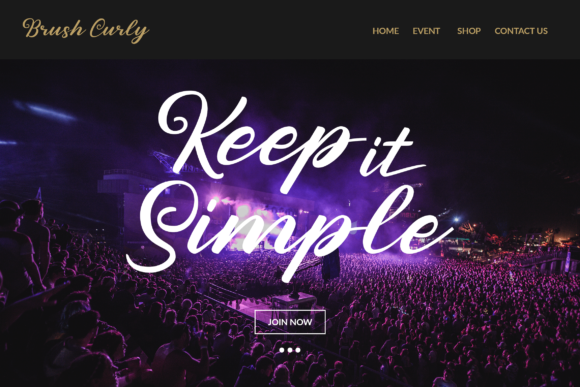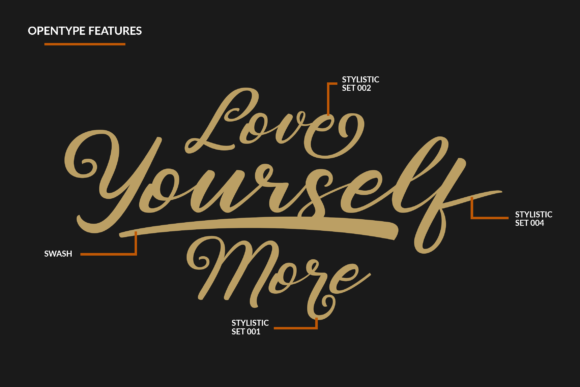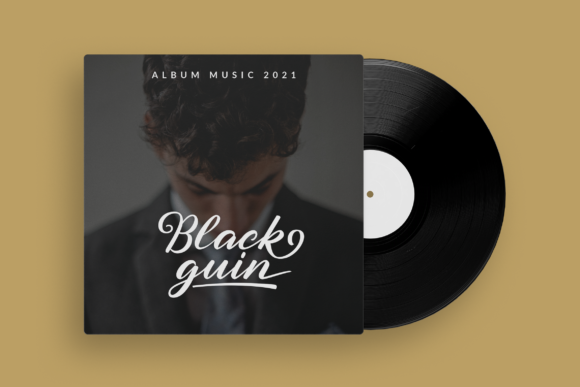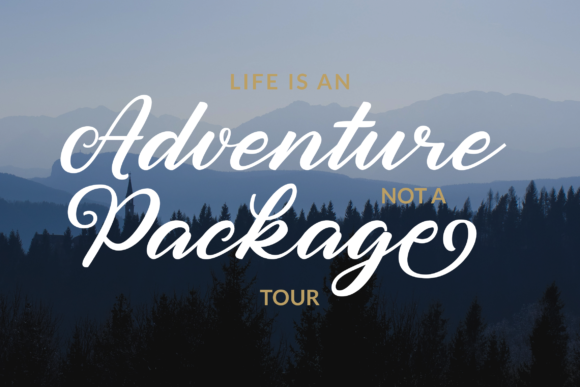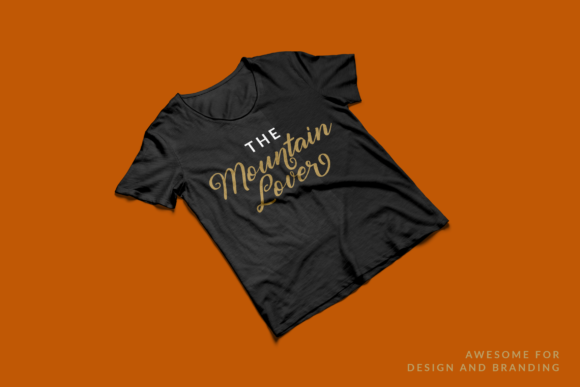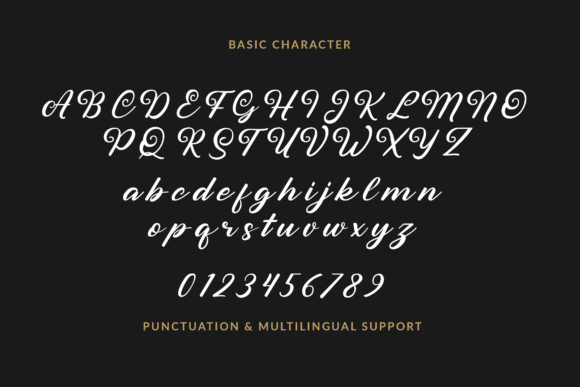
Introducing Brush Curly Font: Elevate Your Designs with a Stylish Handwritten Touch
Are you looking for a font that can add a bold and confident touch to your headlines and logotype projects? Look no further than Brush Curly Font, a gorgeous and dynamic handwritten font that’s perfect for designers and crafters alike. With its strong and nostalgic character, Brush Curly is sure to elevate your designs and make them stand out from the crowd.
What Makes Brush Curly Font So Special?
Brush Curly Font is a carefully crafted handwritten font that’s designed to give your designs a stylish and confident look. Its bold and dynamic strokes are perfect for creating eye-catching headlines and logotypes that demand attention. Whether you’re working on a branding project, a packaging design, or a digital marketing campaign, Brush Curly Font is the perfect choice.
One of the standout features of Brush Curly Font is its PUA (Private Use Area) encoding. This means that you can access all of the glyphs and swashes with ease, giving you complete creative control over your designs. With PUA encoding, you can effortlessly navigate the font’s extensive character set, including alternative letters, ligatures, and decorative swashes.
The Benefits of Using Brush Curly Font
So why should you choose Brush Curly Font for your next design project? Here are just a few benefits of using this amazing font:
- Unique and eye-catching designs: With its bold and dynamic strokes, Brush Curly Font is perfect for creating designs that stand out from the crowd.
- Easy to use: Brush Curly Font is PUA encoded, making it easy to access all of the glyphs and swashes.
- Versatile: Brush Curly Font is perfect for a wide range of design projects, from branding and packaging to digital marketing and more.
- Nostalgic character: Brush Curly Font has a warm and nostalgic feel that’s perfect for creating designs that evoke a sense of classic style.
How to Use Brush Curly Font in Your Designs
Using Brush Curly Font in your designs is easy. Here are a few tips to get you started:
- Choose the right project: Brush Curly Font is perfect for headlines, logotypes, and other design elements that require a bold and confident look.
- Experiment with glyphs and swashes: With PUA encoding, you can easily access all of the glyphs and swashes in Brush Curly Font. Experiment with different combinations to create unique and eye-catching designs.
- Pair with other fonts: Brush Curly Font pairs perfectly with a wide range of other fonts. Try pairing it with a clean sans-serif font for a bold and modern look.
Who Can Benefit from Using Brush Curly Font?
Brush Curly Font is perfect for a wide range of designers and crafters, including:
- Graphic designers: Brush Curly Font is perfect for creating eye-catching headlines and logotypes for branding and marketing projects.
- Packaging designers: With its bold and dynamic strokes, Brush Curly Font is perfect for creating packaging designs that stand out on store shelves.
- Digital marketers: Brush Curly Font is perfect for creating social media graphics, email marketing campaigns, and other digital marketing materials.
- Crafters and scrapbookers: Brush Curly Font is perfect for creating handmade cards, scrapbook pages, and other craft projects.
Brush Curly Font is a gorgeous and dynamic handwritten font that’s perfect for designers and crafters alike. With its strong and nostalgic character, PUA encoding, and versatility, Brush Curly Font is the perfect choice for a wide range of design projects. Whether you’re working on a branding project, a packaging design, or a digital marketing campaign, Brush Curly Font is sure to elevate your designs and make them stand out from the crowd.